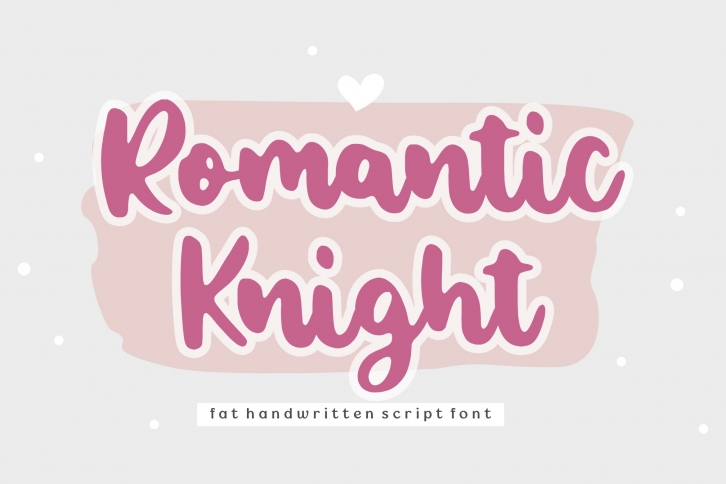
Romantic Knight Handwritten Script is a gorgeous font that was realeased on October 9, 2021. The font can be used in many style contexts and design environments. Perfect for invitations, magazines, websites, logos, and more! It was designed by Balpirick and the file size is 17.96 MB. Thanks for checking out this font!